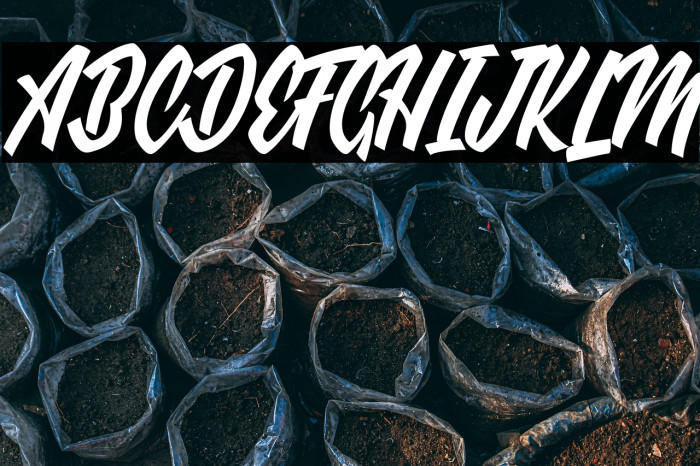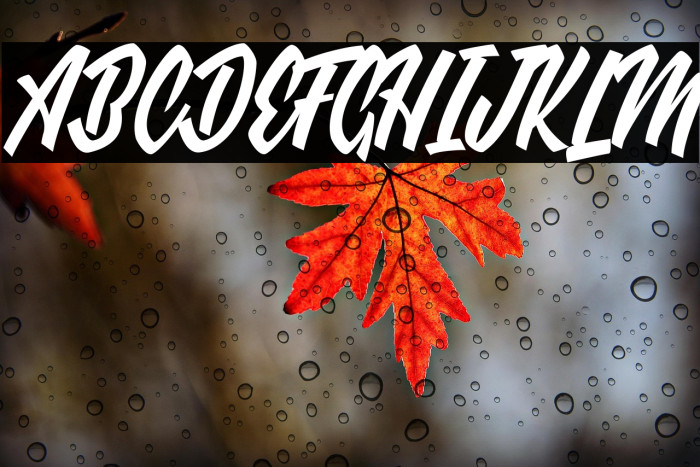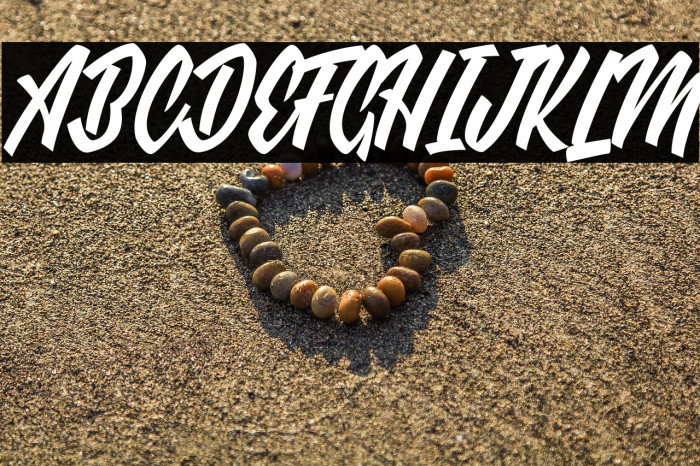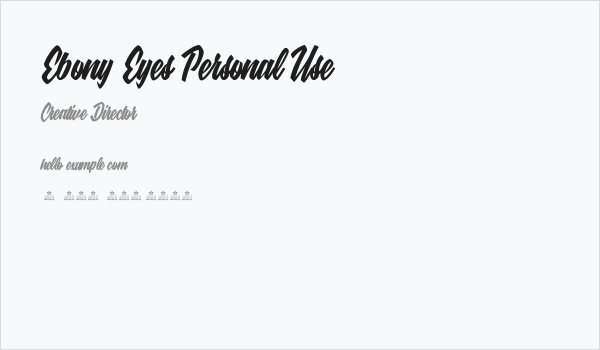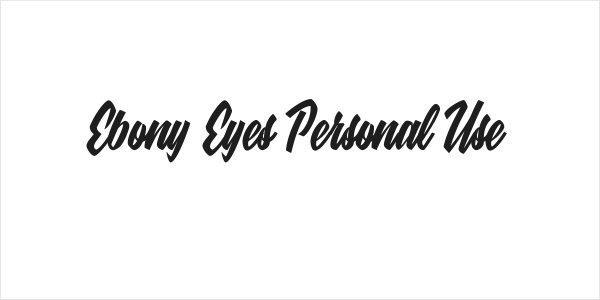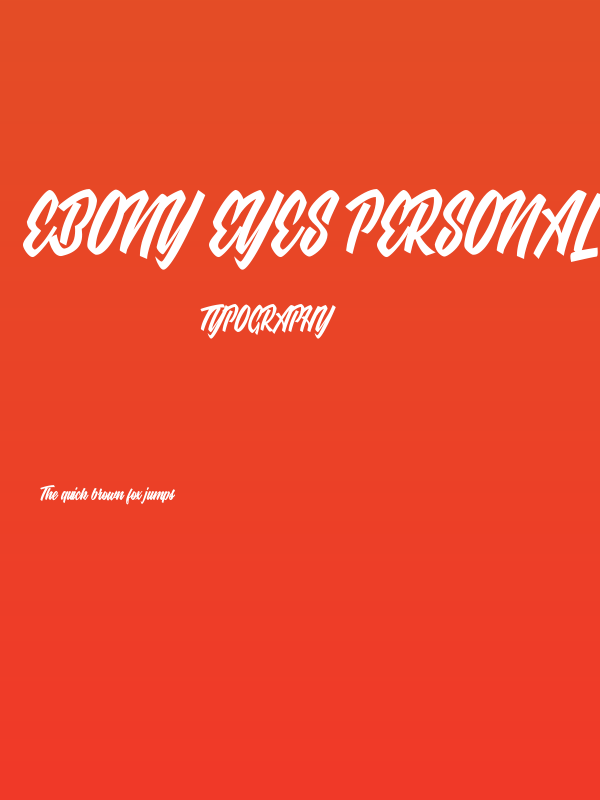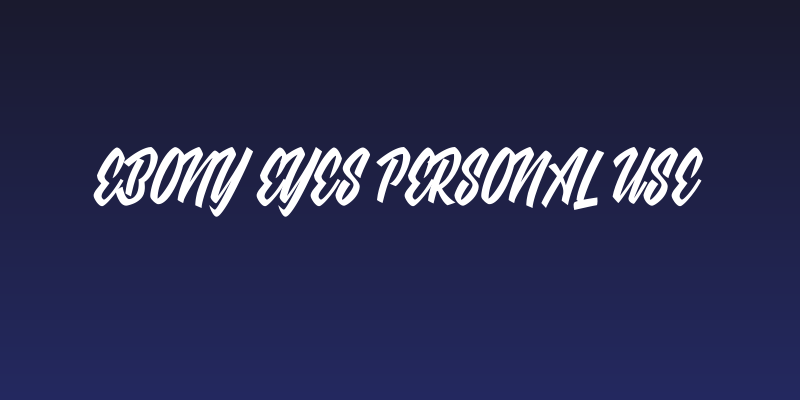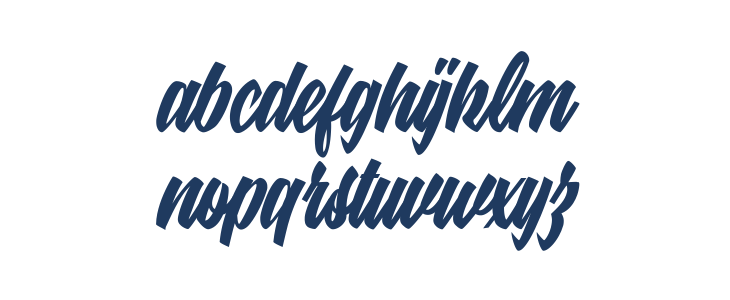
Ebony Eyes Personal Use Font
Ebony Eyes Personal Use Description
This font features a bold and dynamic script style with a strong presence. The characters are designed with a brush-like appearance, giving them a fluid and energetic feel. The uppercase letters are tall and commanding, while the lowercase letters maintain a consistent flow, enhancing readability. The strokes are thick, contributing to a high contrast between the thick and thin parts of the letters. This font is ideal for creating impactful headlines or logos that require a sense of movement and style.